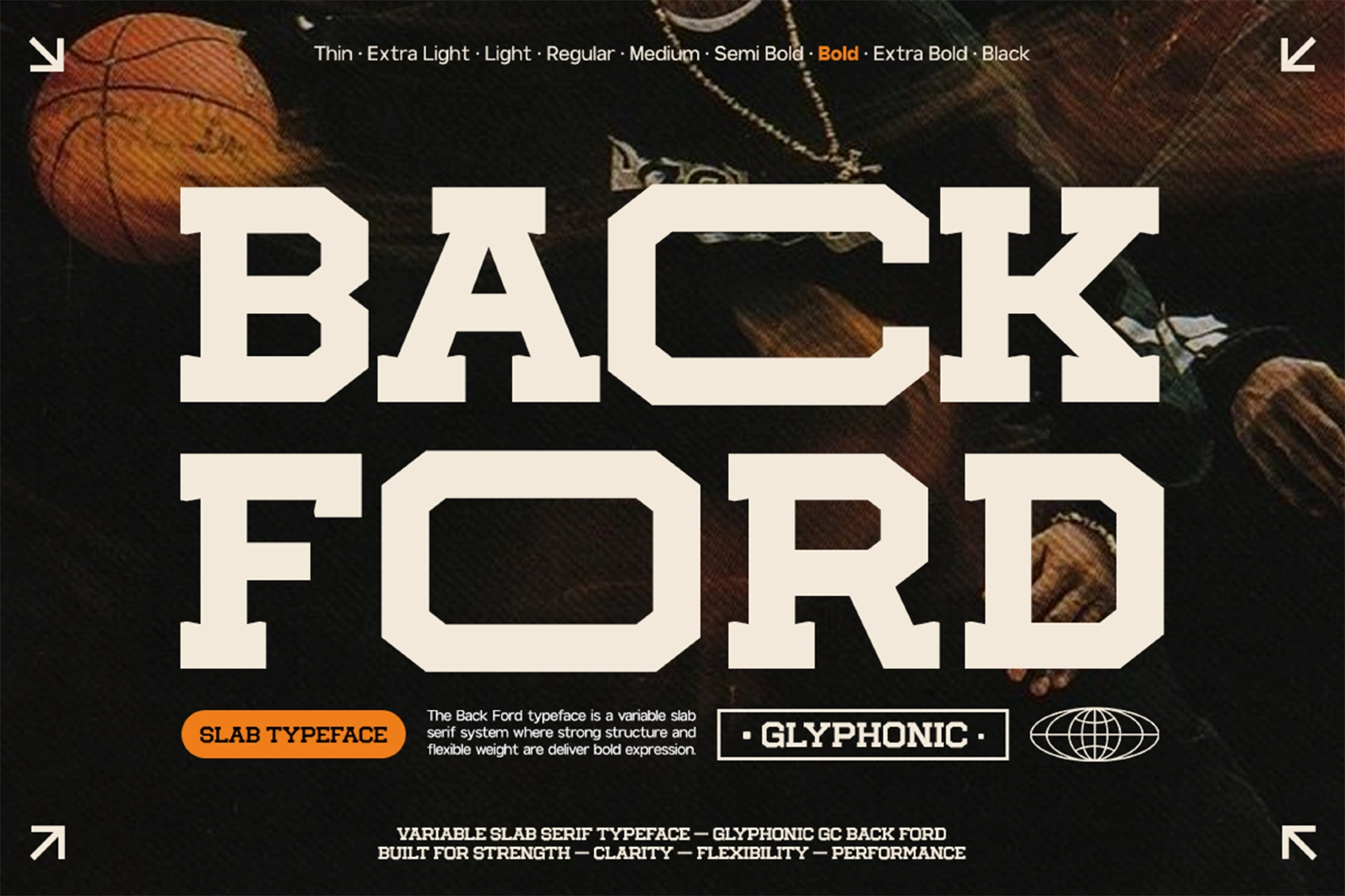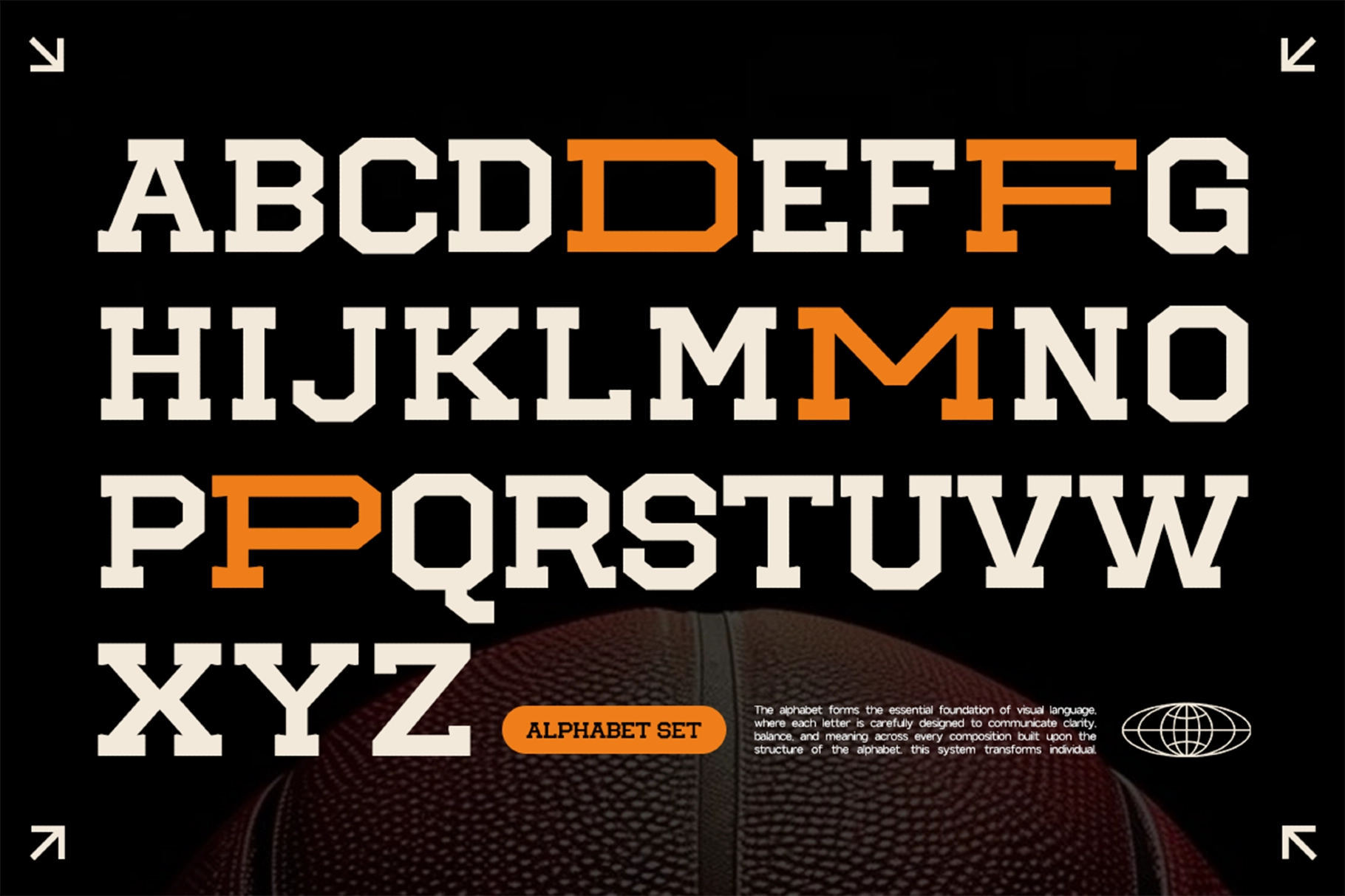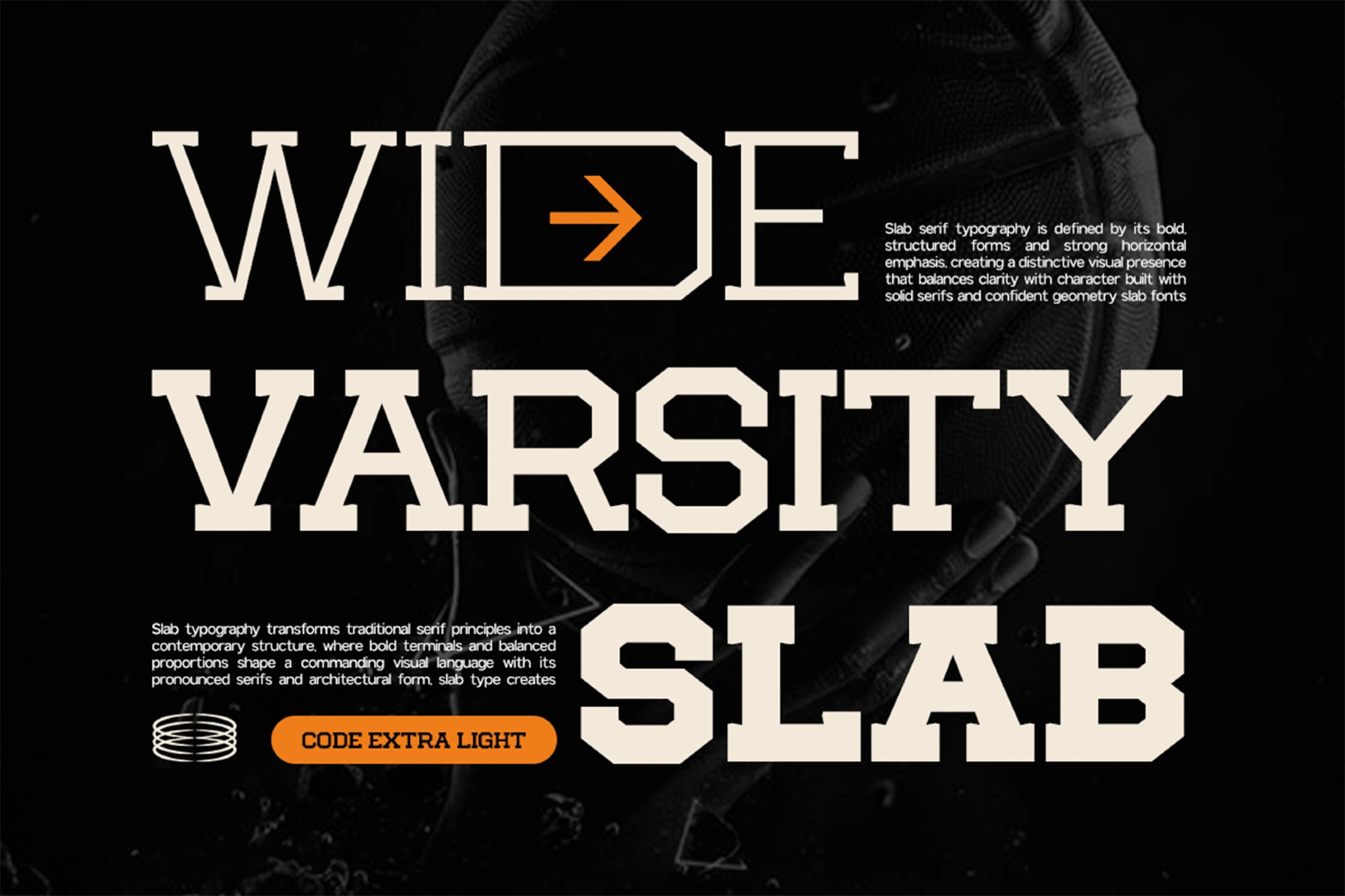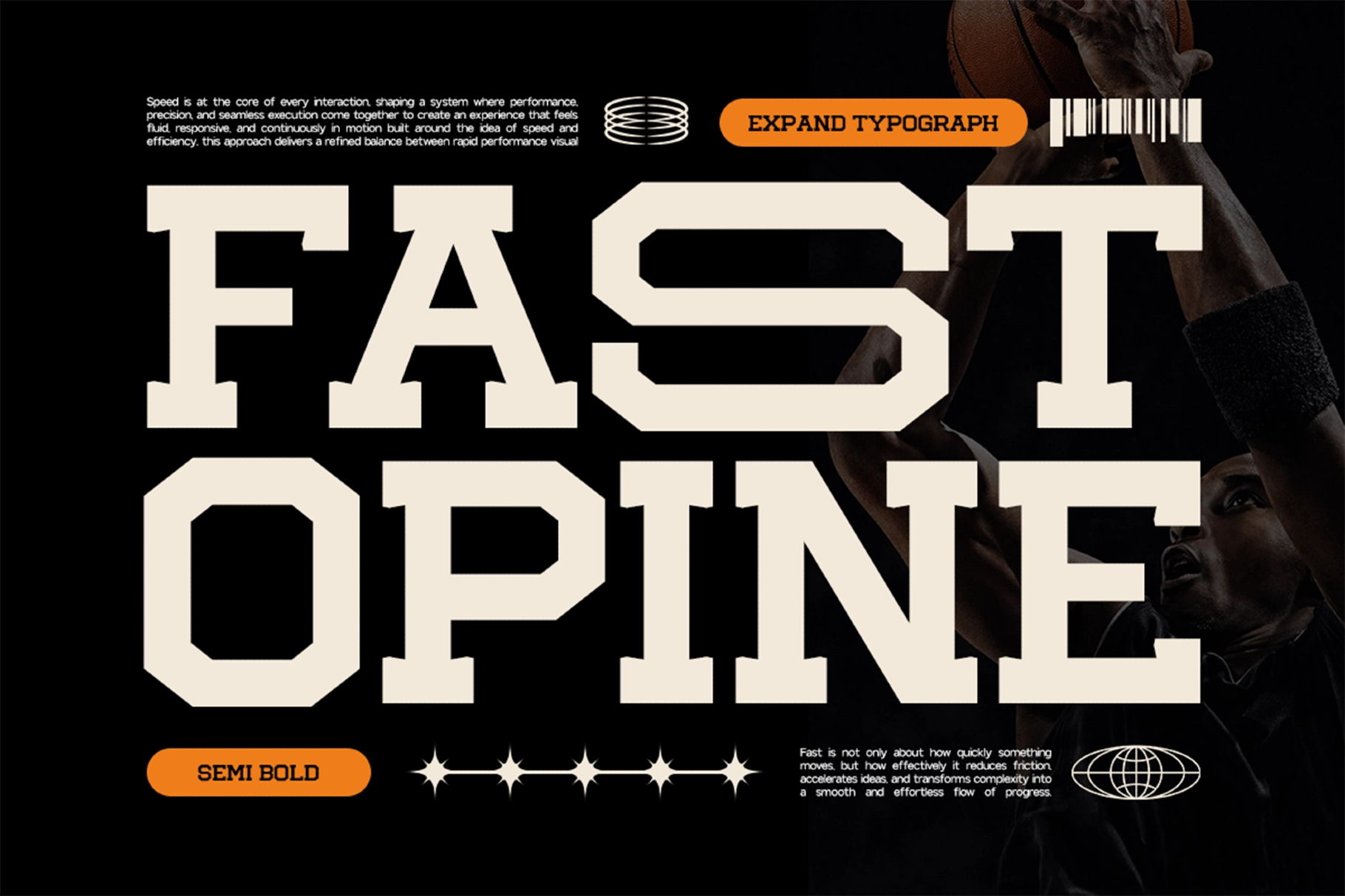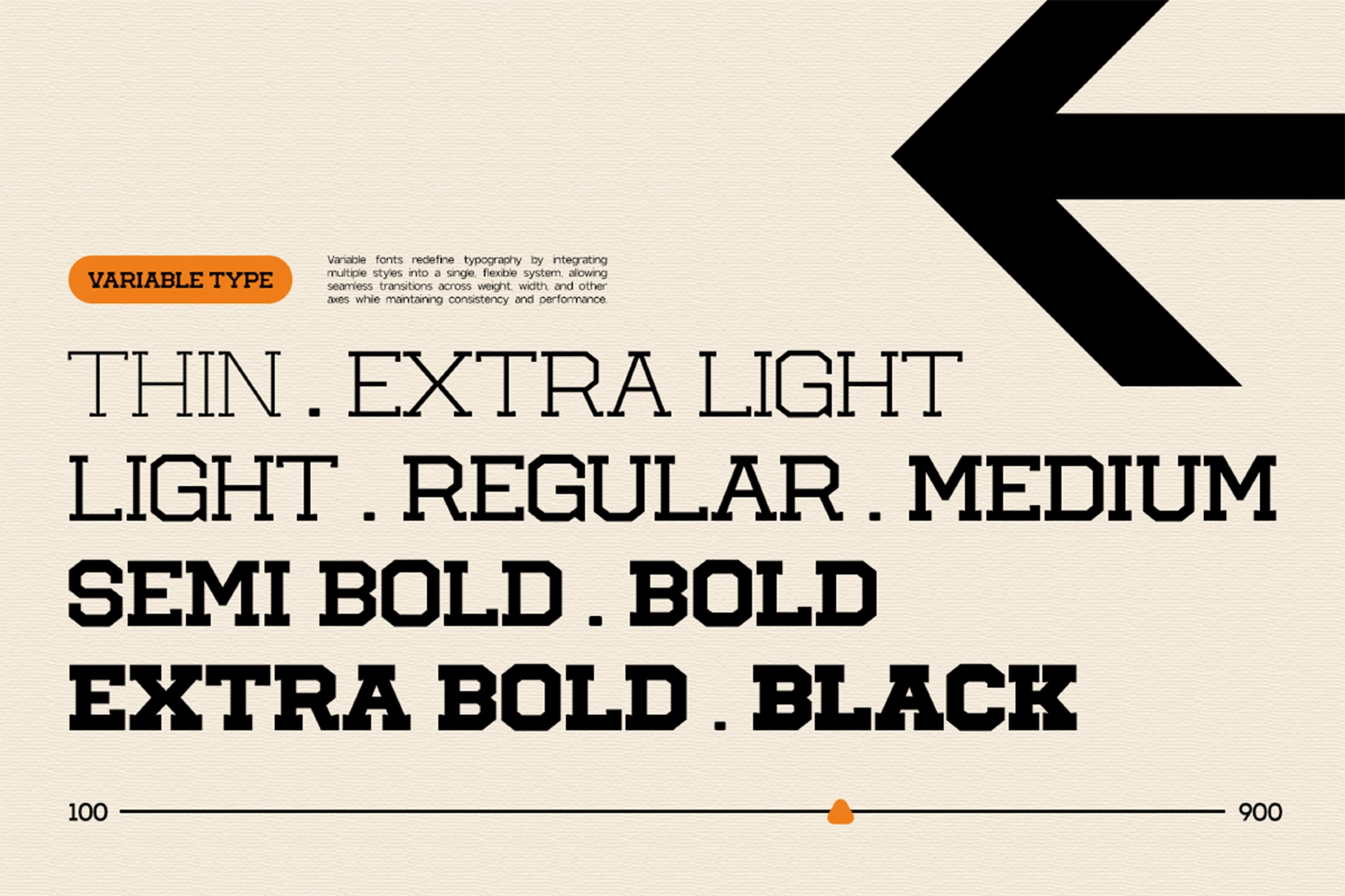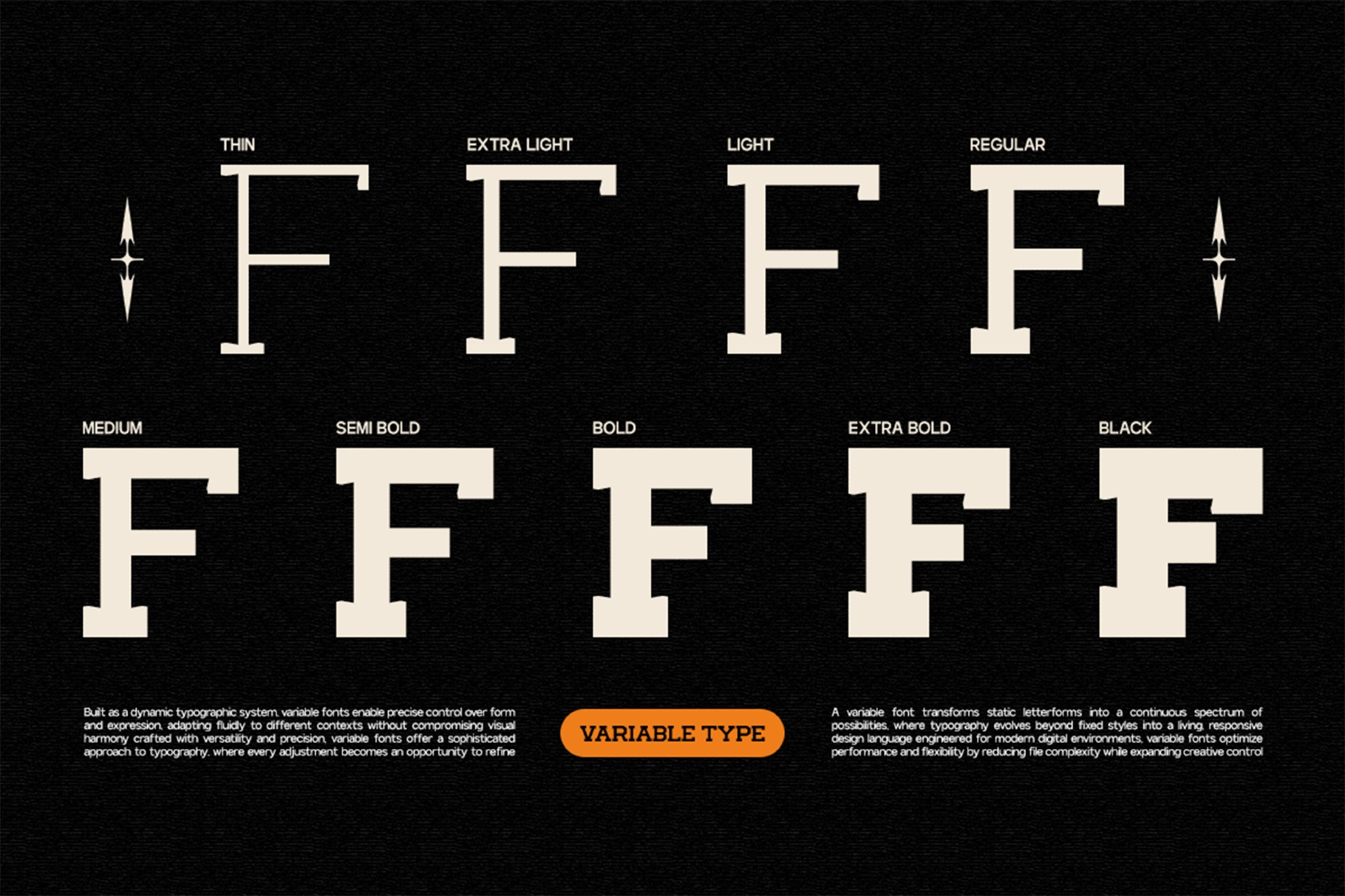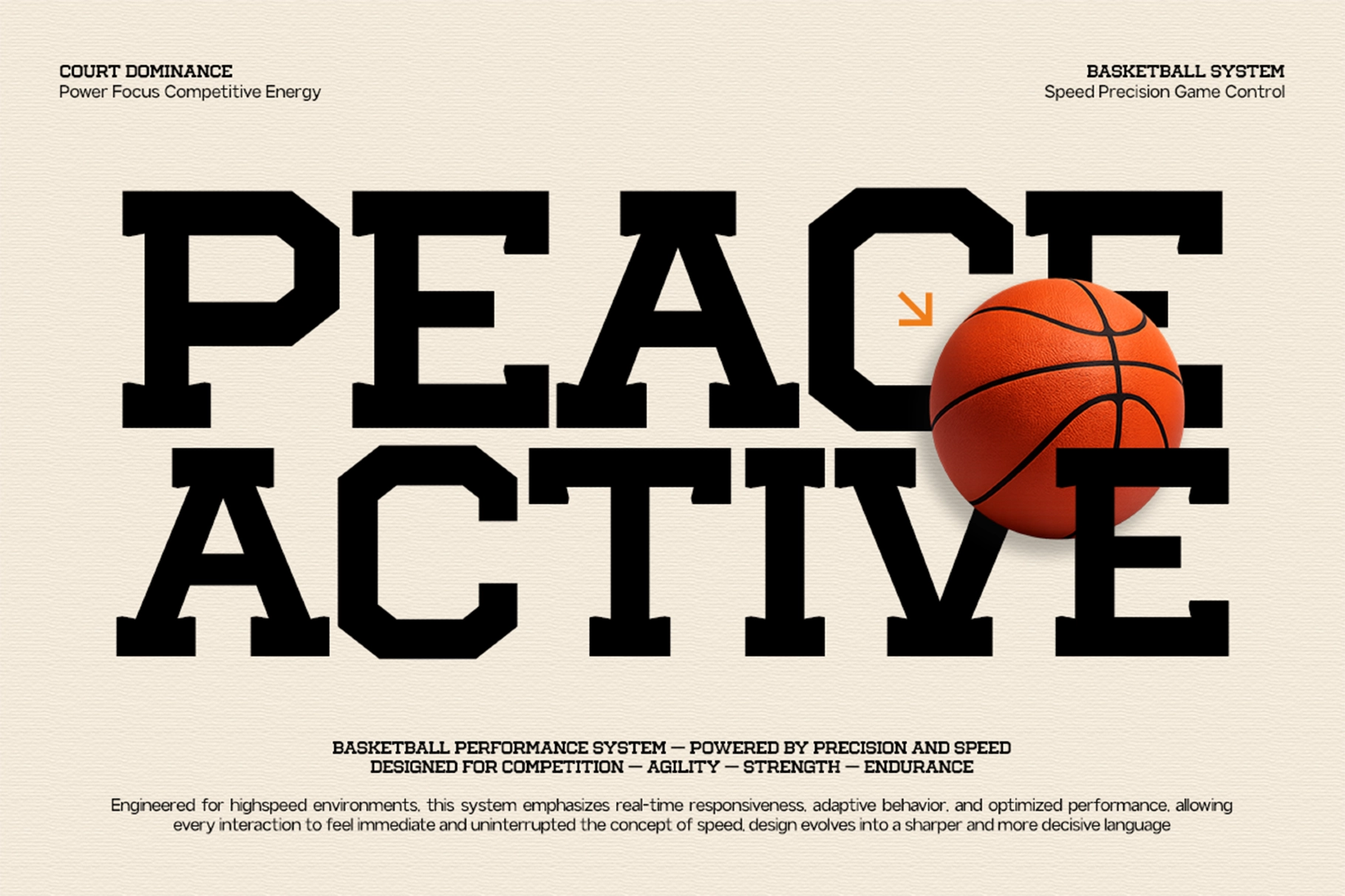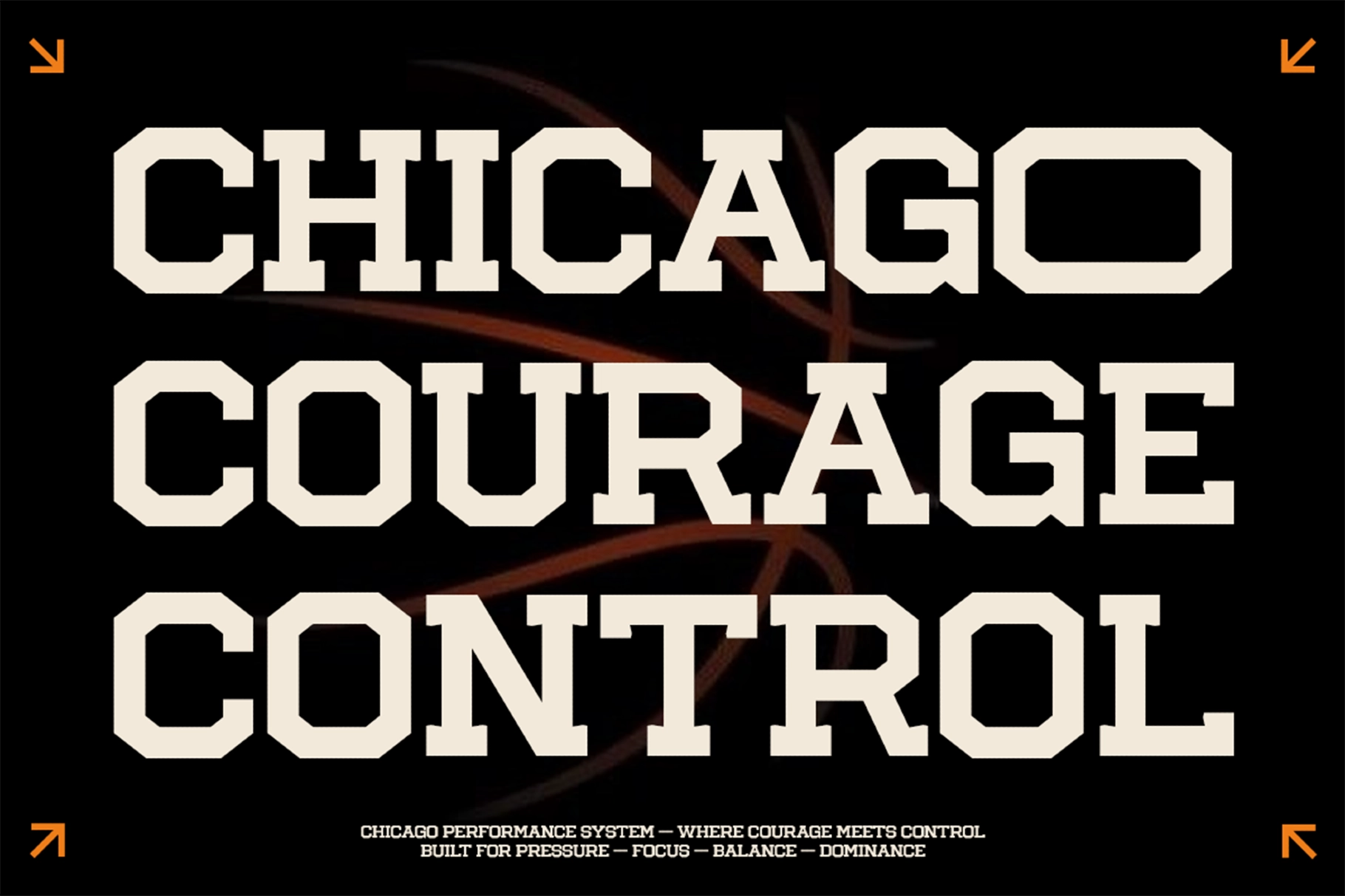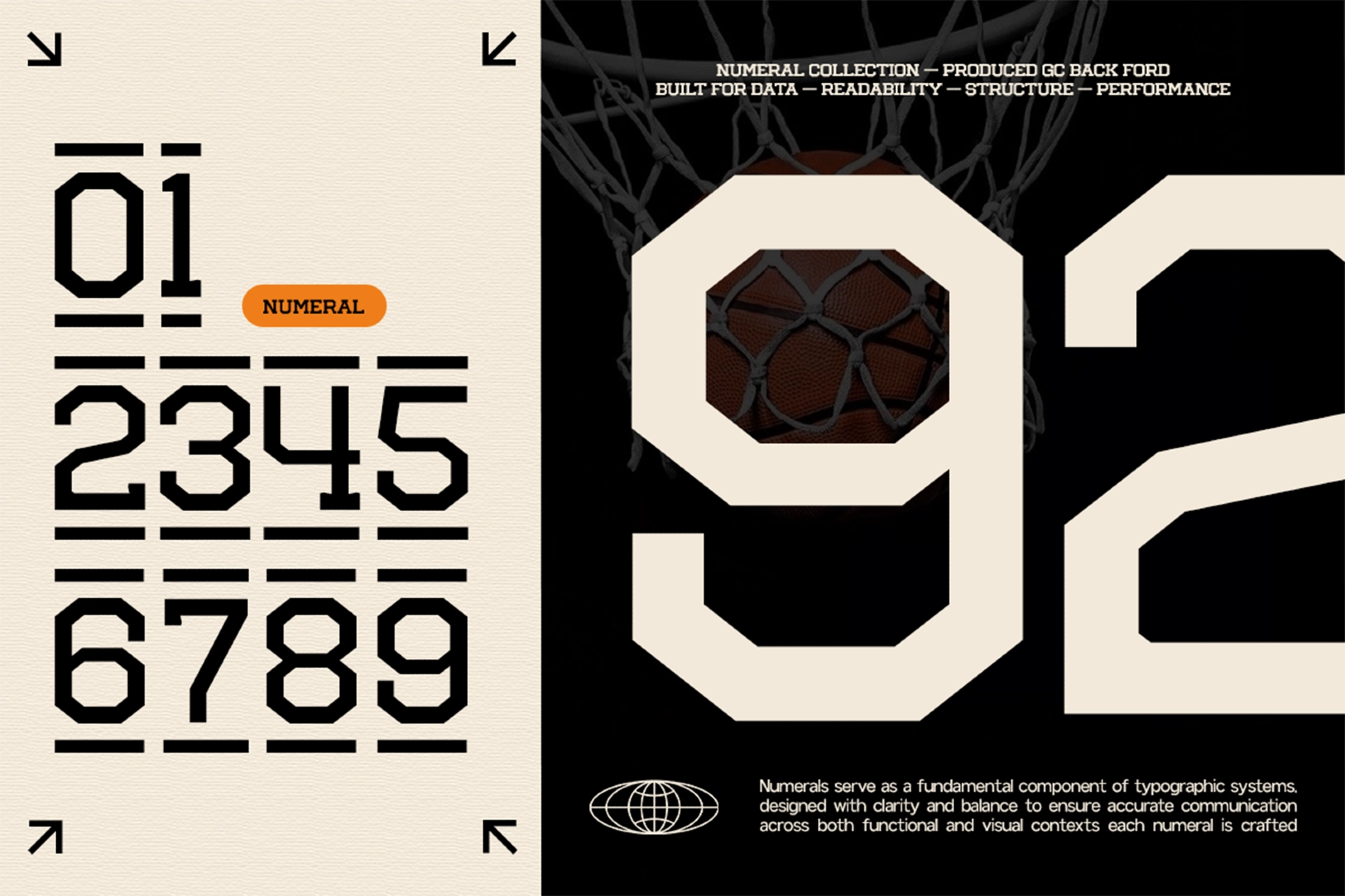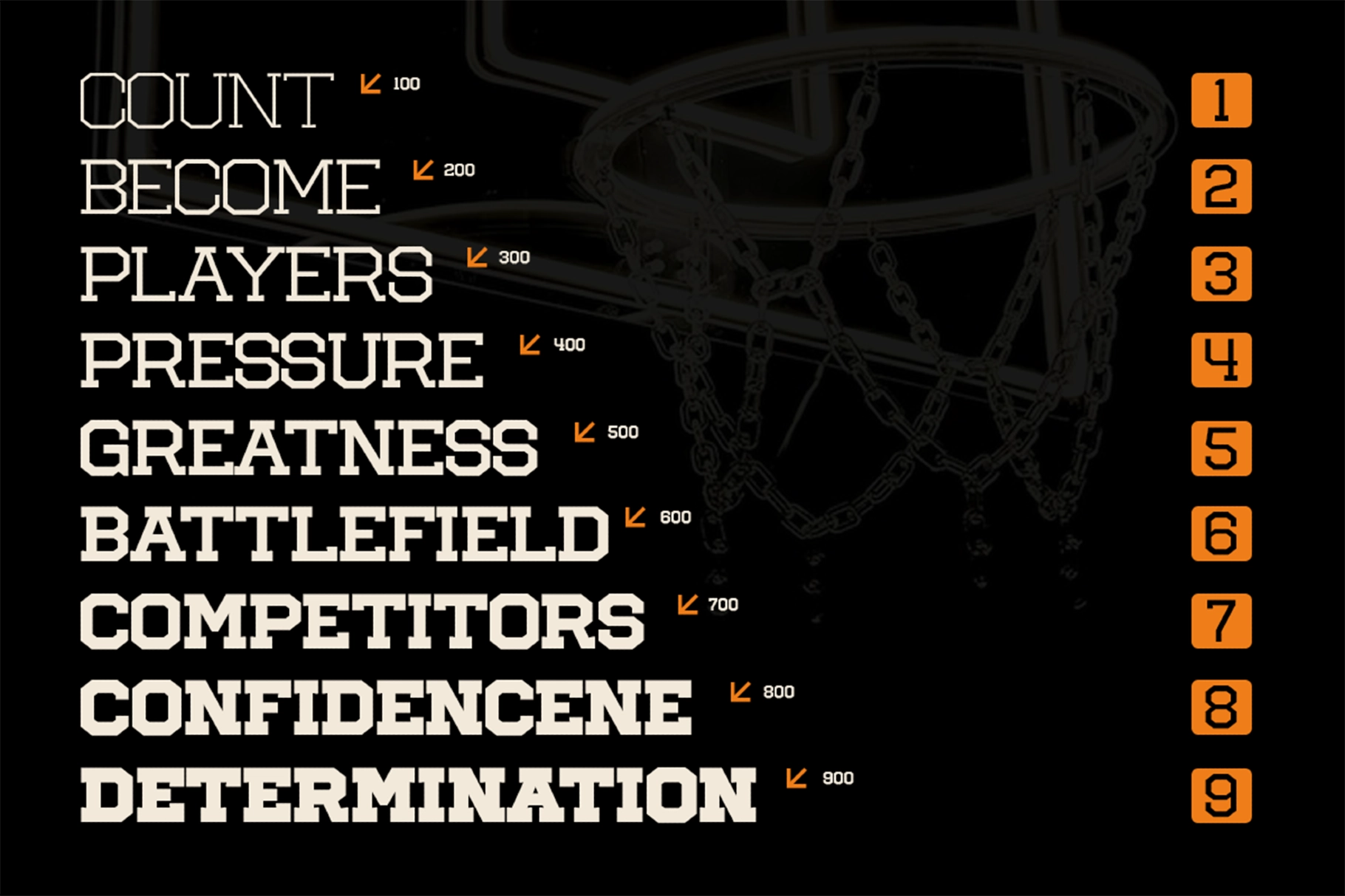
GC Back Ford - Athletic Slab Serif Font
This slab serif is a hard-edged display typeface with athletic proportions, blocky serifs, and sharp cut-ins that give headlines a stadium-sized voice. Its variable weight range runs from thin to black, so the same family can handle clean supporting text, loud poster type, and heavy logo marks without changing visual direction.
Back Ford is made for sports branding, streetwear graphics, team merchandise, basketball posters, varsity apparel, event flyers, editorial covers, esports identities, gym signage, packaging labels, social media campaigns, and large-format typography. The alternates and ligatures add extra punch for custom wordmarks, while the multilingual character set keeps the system practical across broader brand work.
- Variable Font: Thin to Black
- Alternates
- Ligatures
- Multilingual support for 170+ languages